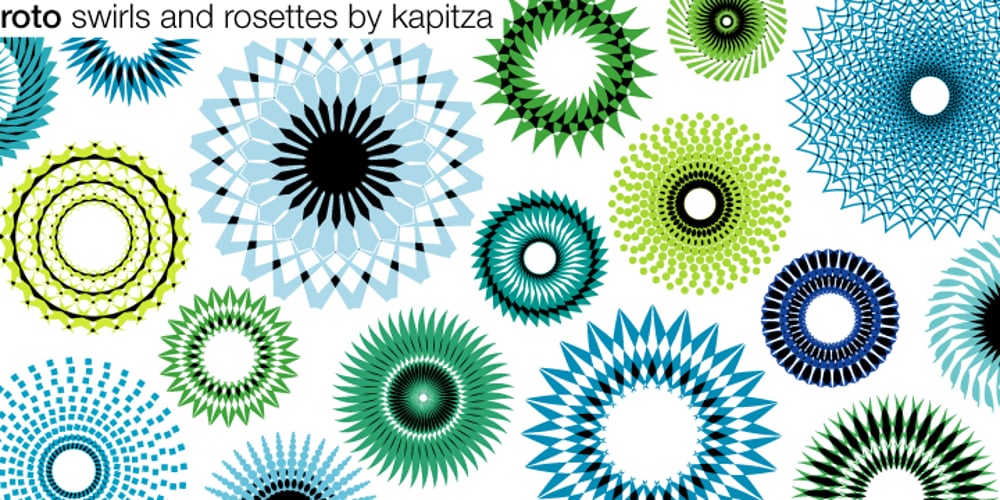
Roto Font Family was designed by published by kapitza. Roto contains 3 styles and family package options. Roto originated from a discovery tour of rotating shapes and clusters which resulted in 52 distinct roto illustrations. The interplay of positive and negative shapes defines roto illustrations and provokes an illusion of movement within the design. These complex illustrations can be combined with each other to create funky designs. Repeating Roto illustrations results in interesting patterns which can be used in many ways. Play with Roto and use your imagination to create virtually endless numbers of exciting designs.